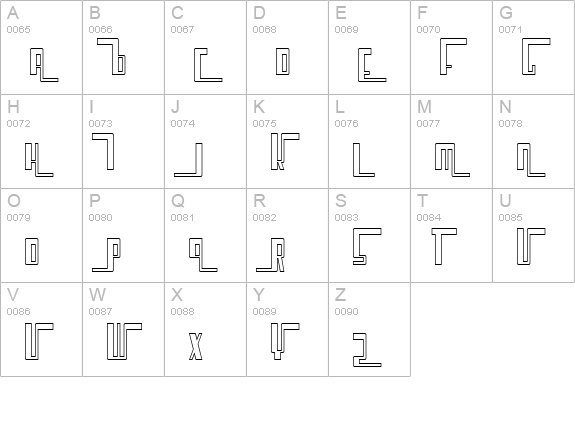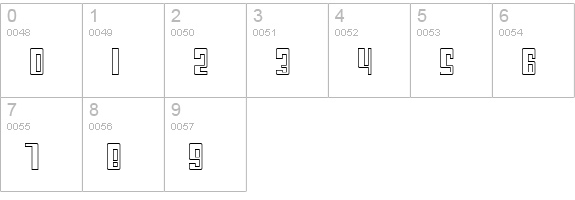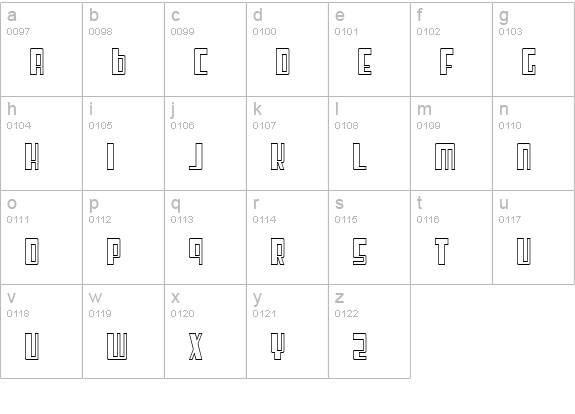
The Cosmic Age Outline font is a stunning display typeface that exudes a futuristic and otherworldly aesthetic. Its sleek and modern design is perfect for projects that require a touch of cosmic flair. With its intricate outline style, this font captures the essence of the vast universe and beyond. The Cosmic Age Outline font is versatile and can be used for a variety of design purposes, such as posters, book covers, logos, and more. Best of all, the Cosmic Age Outline font is completely free to download at FontsMarket.com. Whether you're a graphic designer, artist, or enthusiast looking to add a touch of the cosmos to your creations, this font is a must-have in your toolkit. Embrace the cosmic vibes and elevate your designs with the Cosmic Age Outline font today!